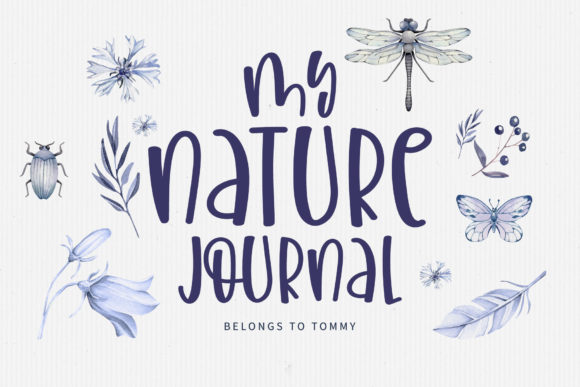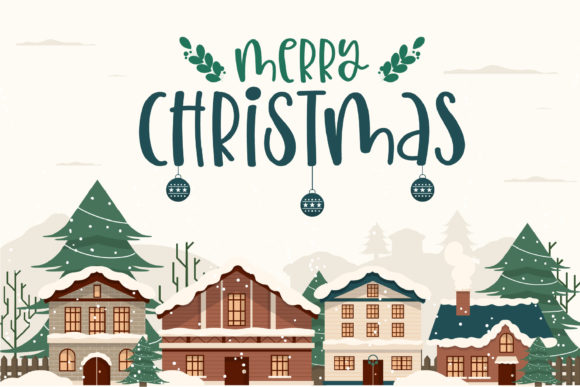
Homeschool Mom Font
db-ku.com - Script & Handwritten -- Homeschool Mom is a quirky and laid-back handwritten font. Whatever the topic, this font will be a wonderful asset to your font library, as it has the potential to enhance any creation.